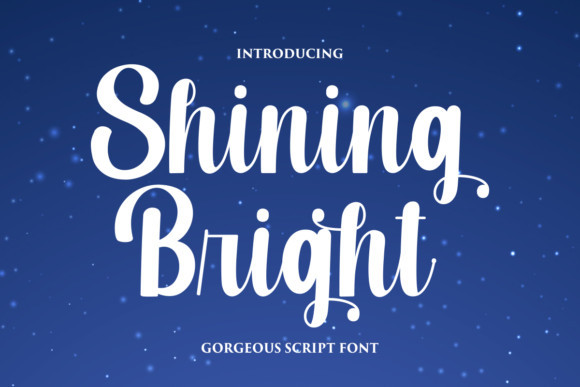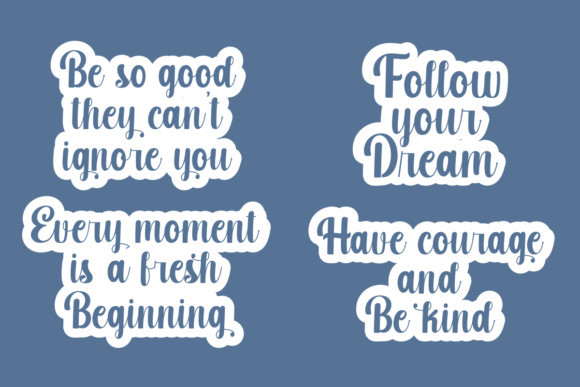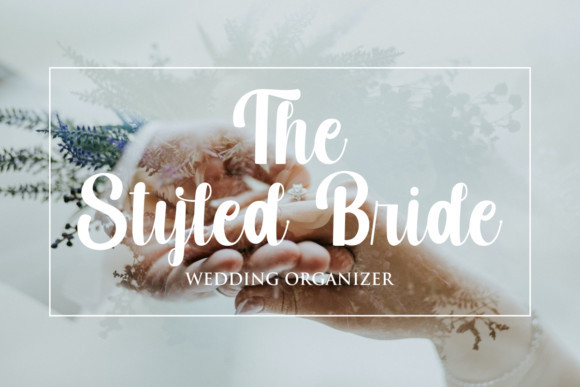
Shining Bright Font
Shining Bright FontShining Bright is a beautiful handwritten font. Fall in love with its completely different and timeless style and use it to create spectacular designs!